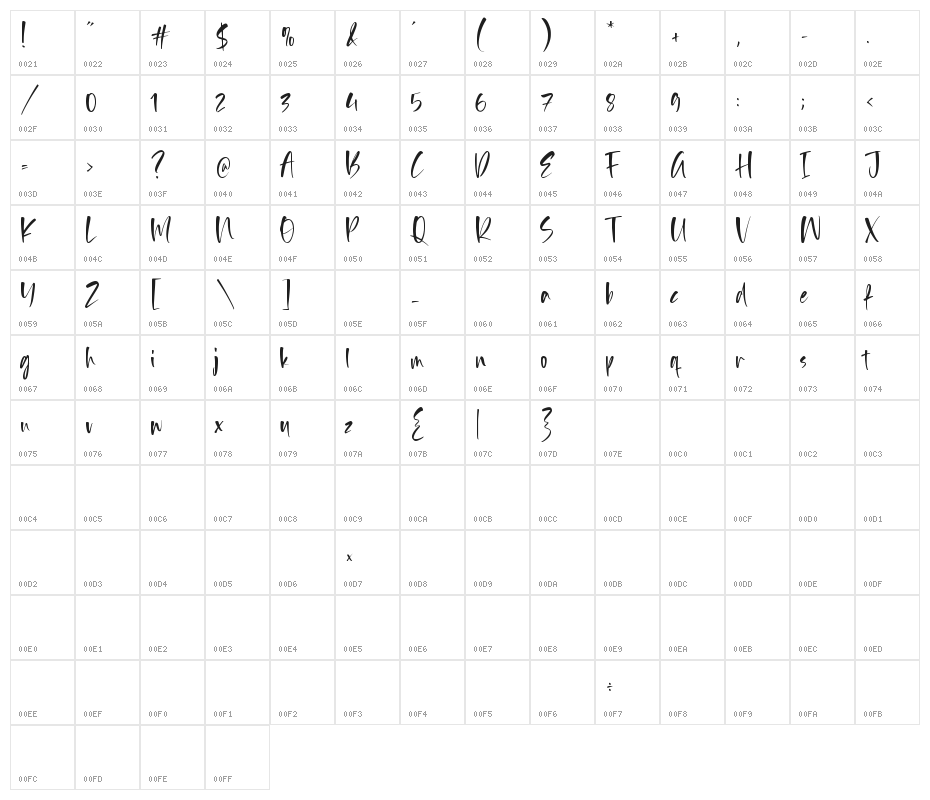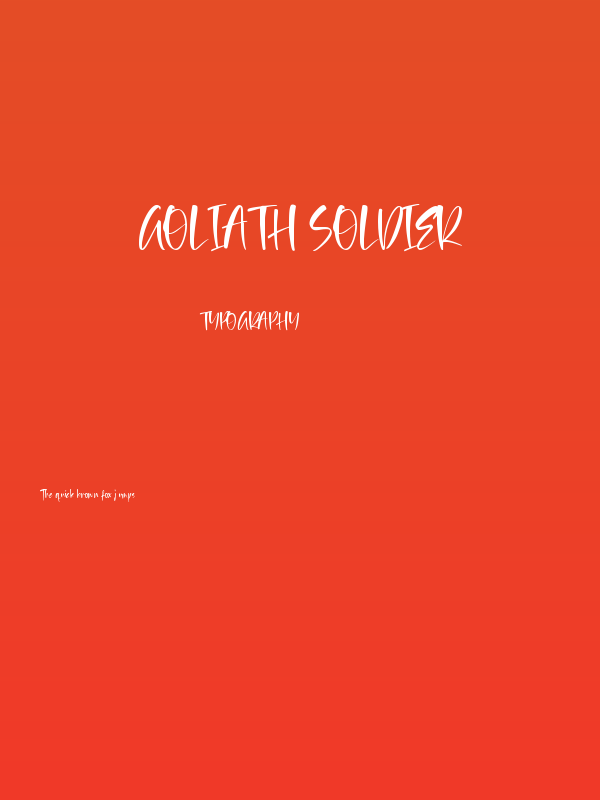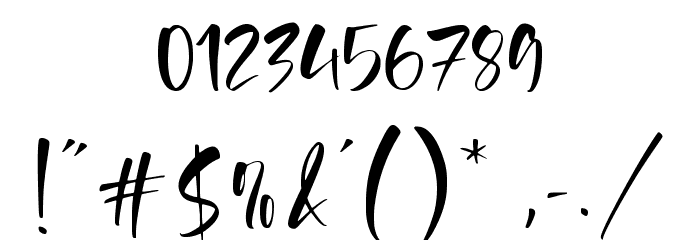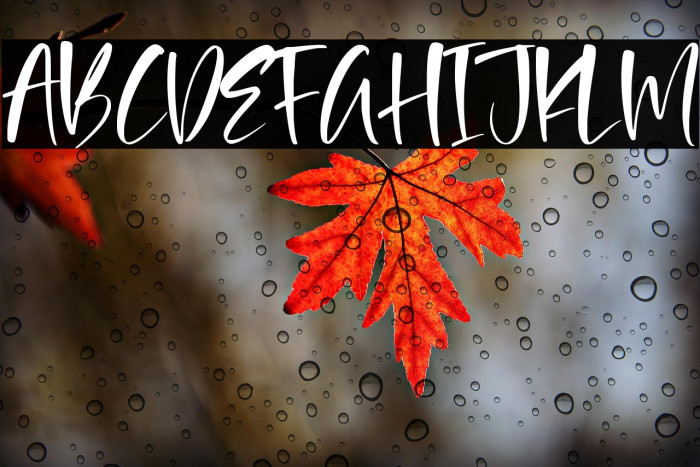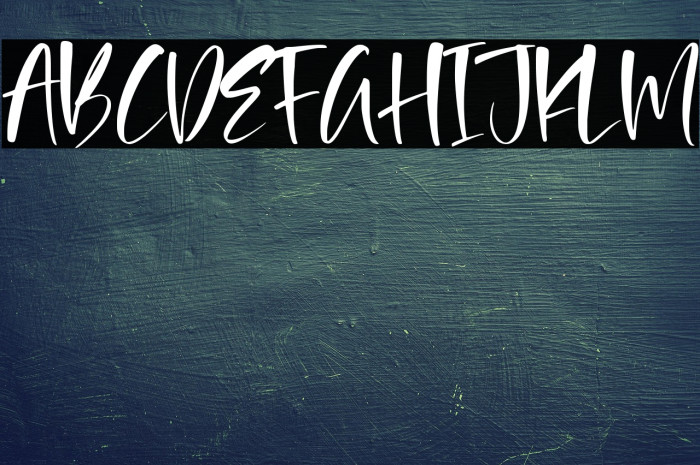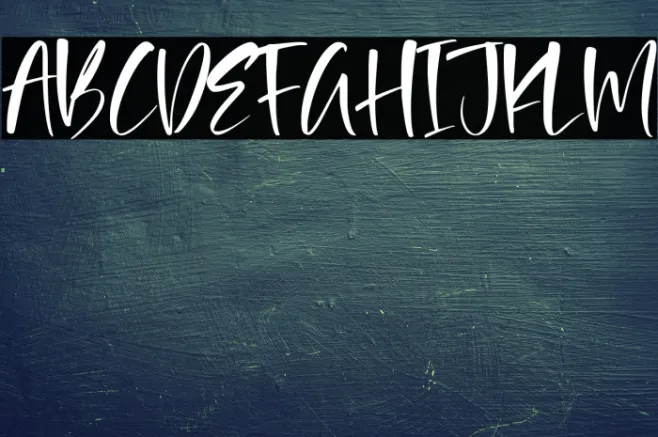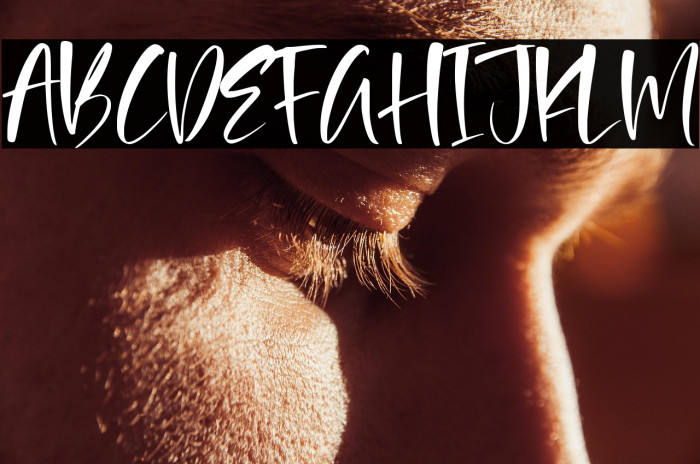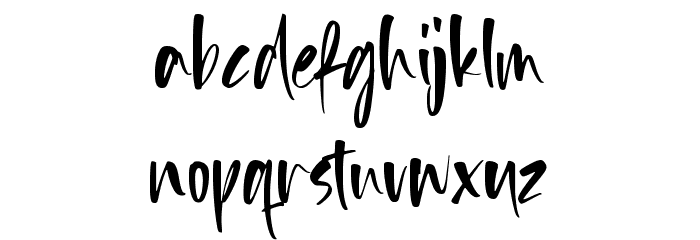
Goliath Soldier Font
Goliath Soldier Description
This font features a bold and expressive handwritten style, characterized by its dynamic and fluid strokes. The uppercase letters are particularly striking, with a sense of movement and energy that suggests a personal, artistic touch. The lowercase letters maintain this fluidity, offering a cohesive look across different text sizes. Numbers and special characters are crafted with the same attention to detail, ensuring versatility in various design contexts. The overall appearance is modern and stylish, making it suitable for projects that require a personal or creative flair.